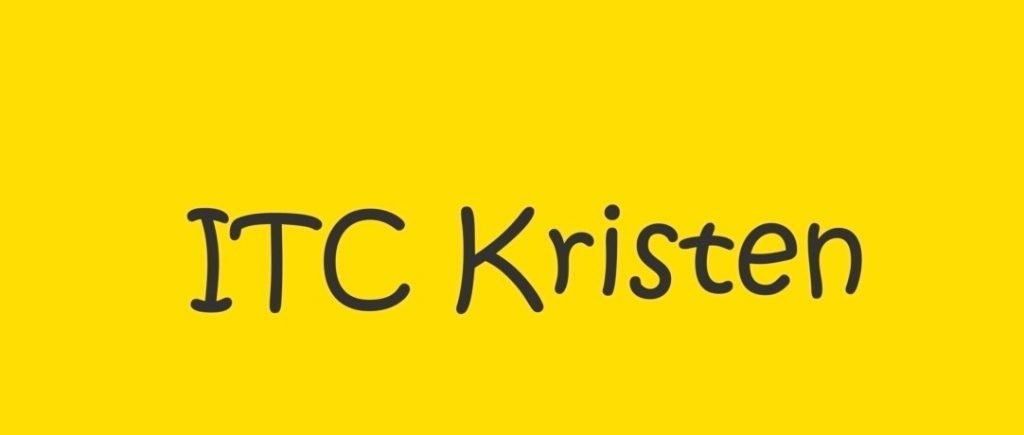
The styling of this font was inspired by a menu of Cambridge, Massachusetts restaurant, that was handwritten. That is the reason that by using this typeface
Introducing Kristen ITC Font This typeface was created by George Ryan, and he developed it for the International Typeface Corporation. It is a casual script font available in two distinct weights.
The styling of this font was inspired by a menu of Cambridge, Massachusetts restaurant, that was handwritten. That is the reason that by using this typeface you will get the natural handwritten look in your design.
We had often seen this typeface to be sued inside the branding and promotion of different products but mostly child-oriented products. This is also being used in commercial use along with the aharoni font.
This ITC Font is the great bold typeface that is mostly used in MAC devices. The font generator function of this typeface makes this typeface much more use and it is also present inside google fonts.
Kristen ITC Font is the casual script typeface that was designed by George Ryan for the International Typeface Corporation.
The Papyrus Font is very close to the Kristen ITC font.